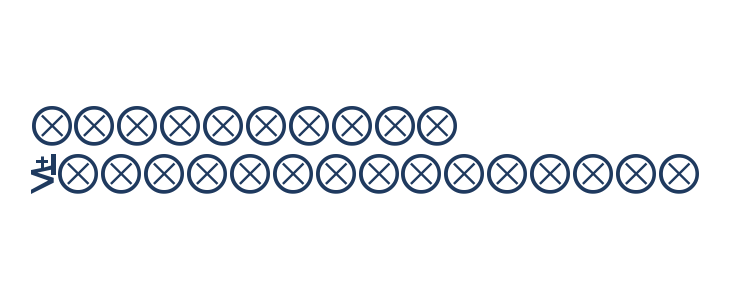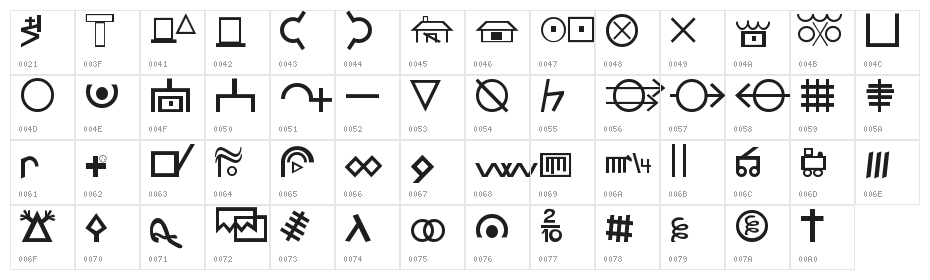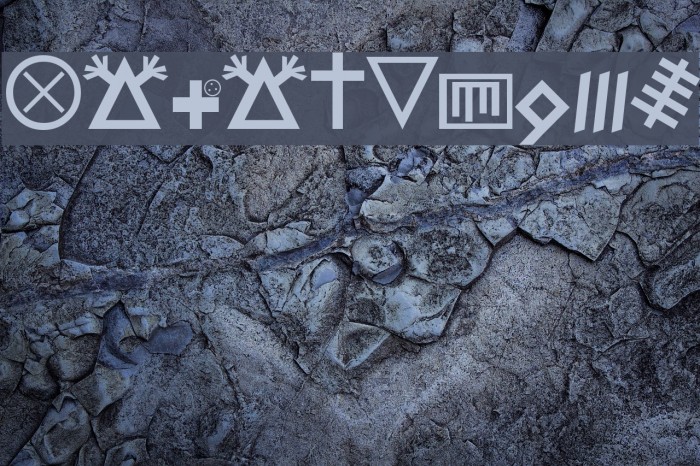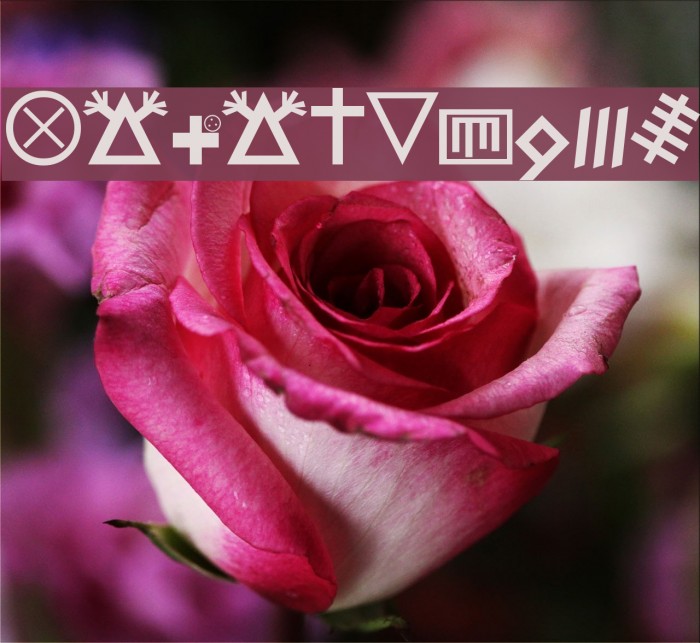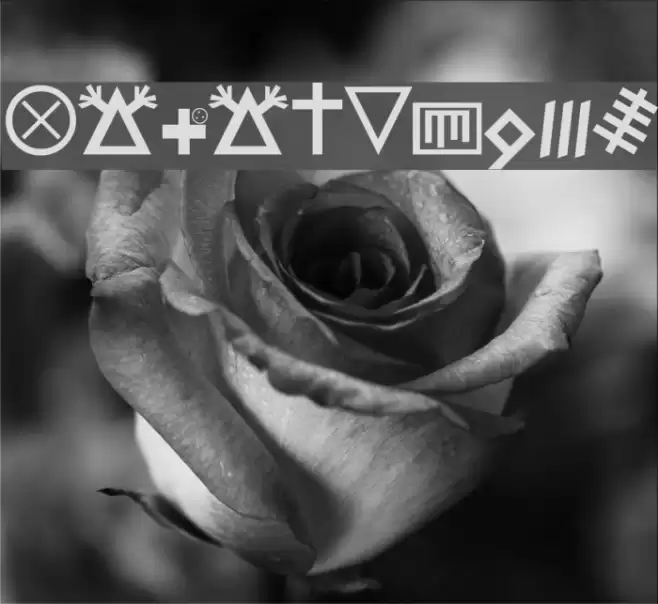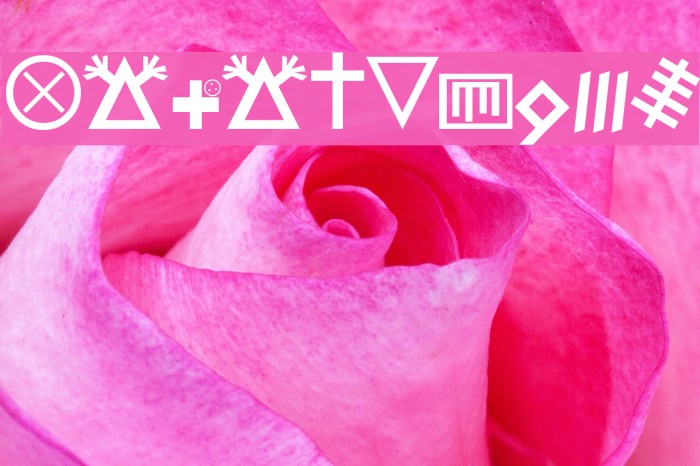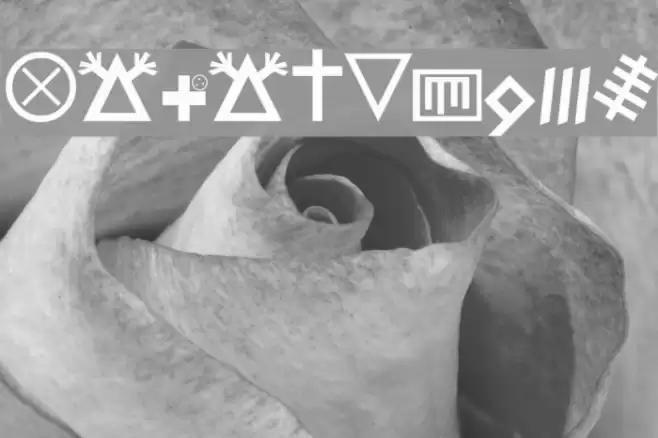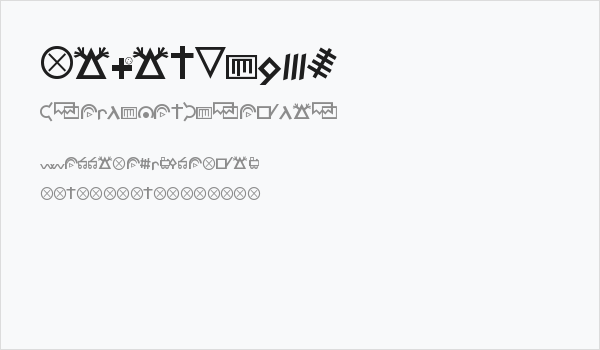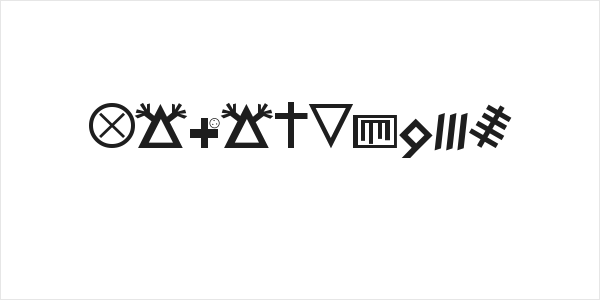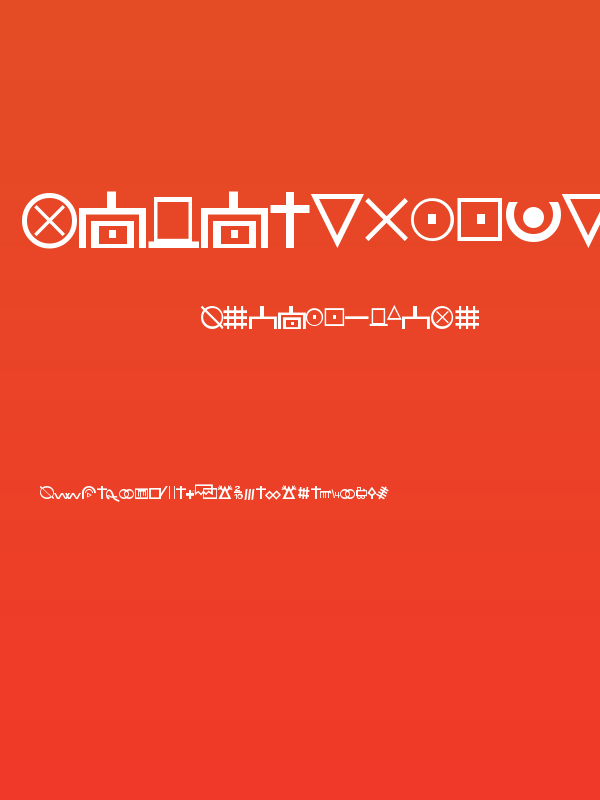
Hobo Signs Font
Hobo Signs Description
This is not a traditional font but rather a collection of symbols known as hobo signs. These symbols were historically used by itinerant workers to communicate important information about safety, resources, and other conditions in a given area. Each symbol conveys a specific message, such as indicating a friendly house, warning of danger, or pointing out available work. The symbols are simple, often geometric, and designed to be quickly recognizable. They are typically drawn in a straightforward manner, with clear lines and shapes that can be easily replicated with basic tools.
| Use Case | Decorative elements, Educational materials |
| Proposed Projects | This set of symbols could be used in educational materials about history, cultural studies, or graphic design projects that explore non-verbal communication. They might also be incorporated into art installations or used in creative storytelling to add de |